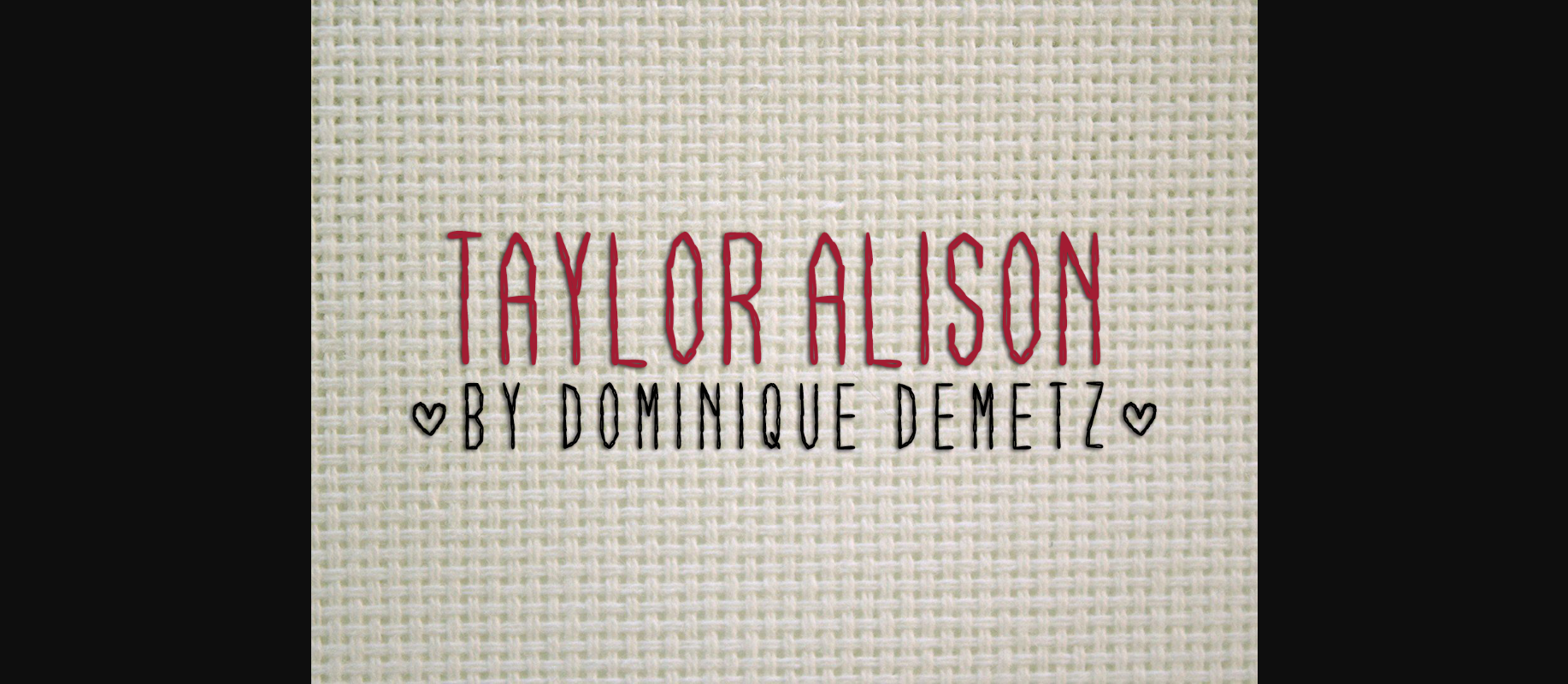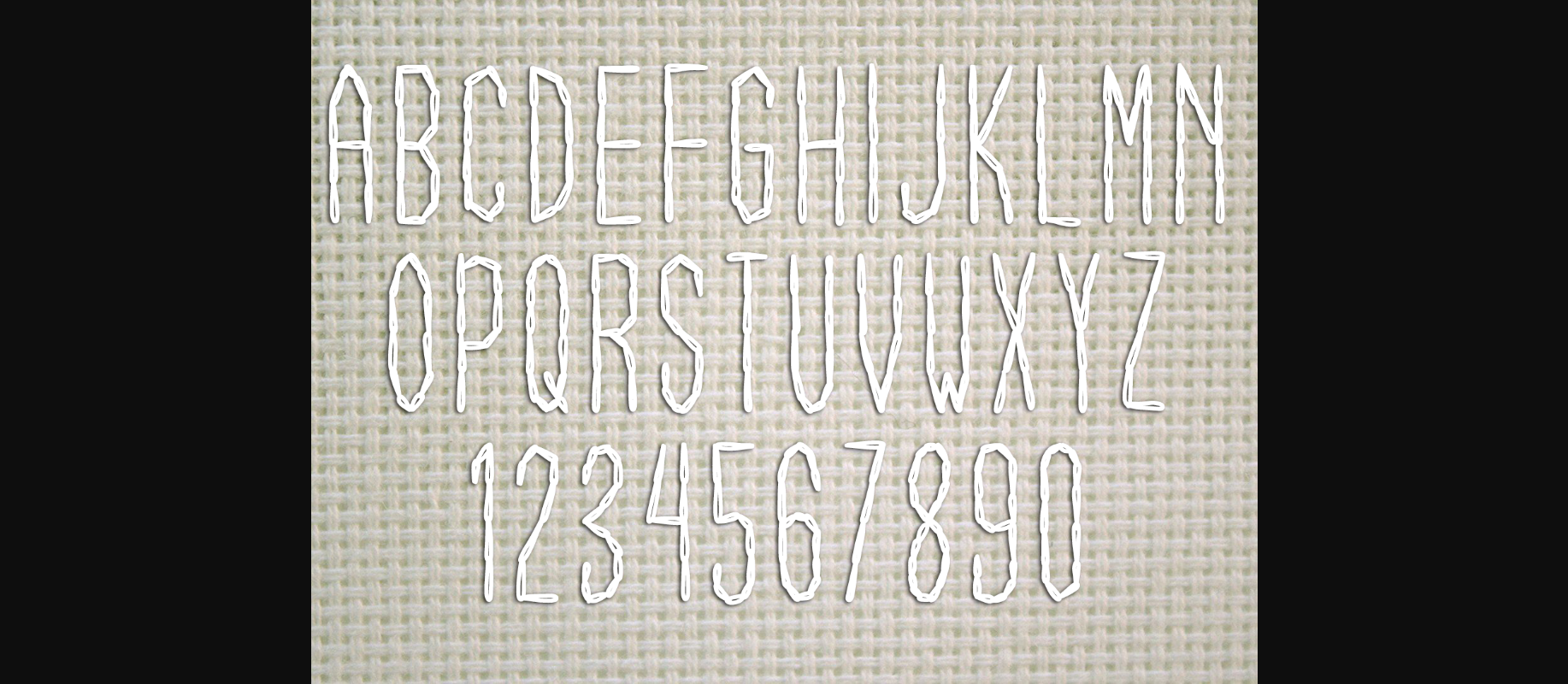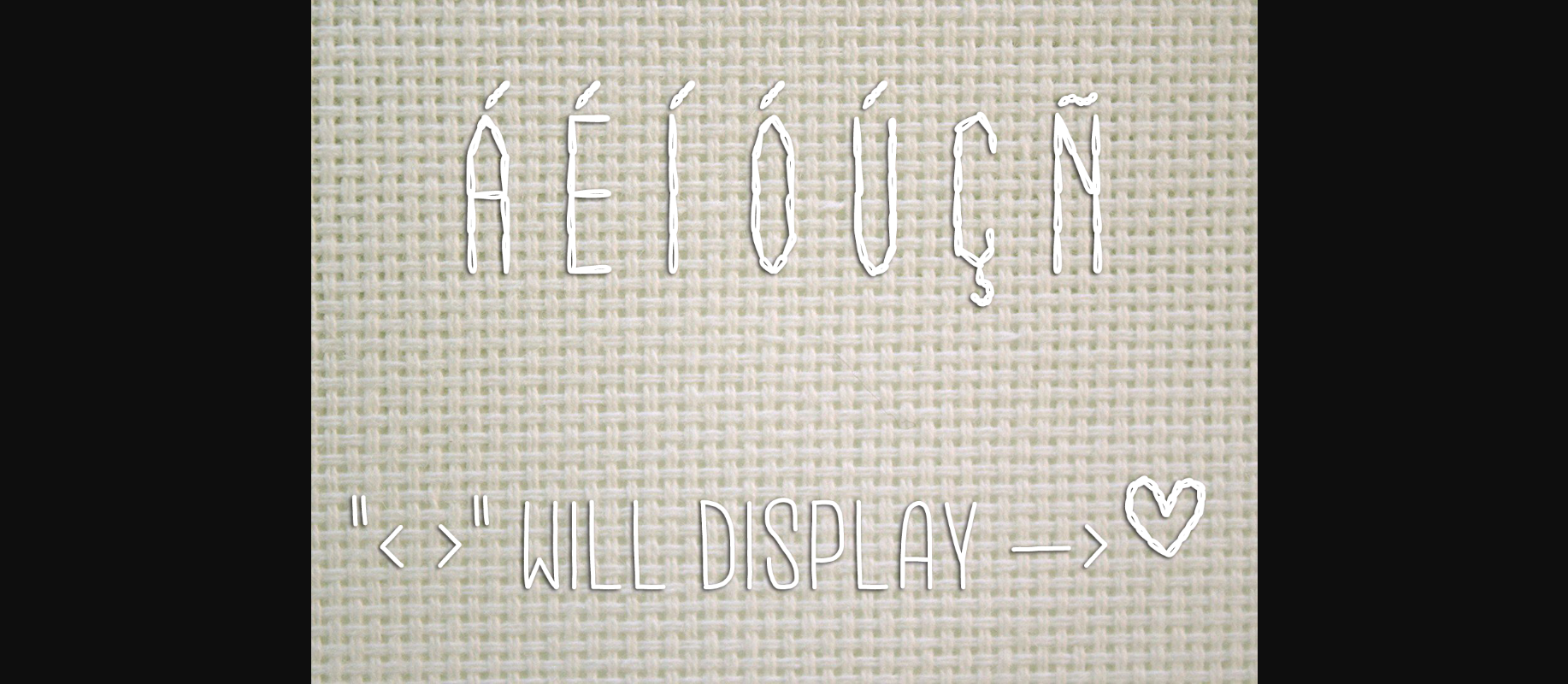
Taylor Alison Font
About Taylor Alison Font
Taylor Alison is a fun and decorative font, crafted to replicate the stylings of hand stitching. Use Taylor Alison to add some fun and textural intrigue to your designs!